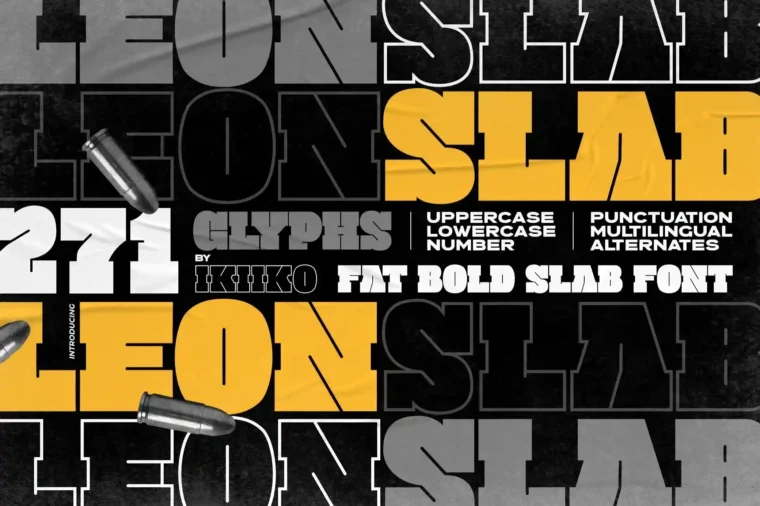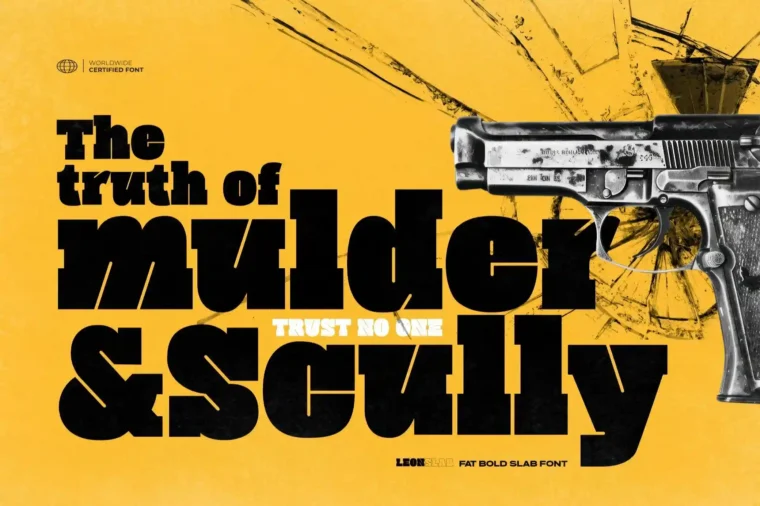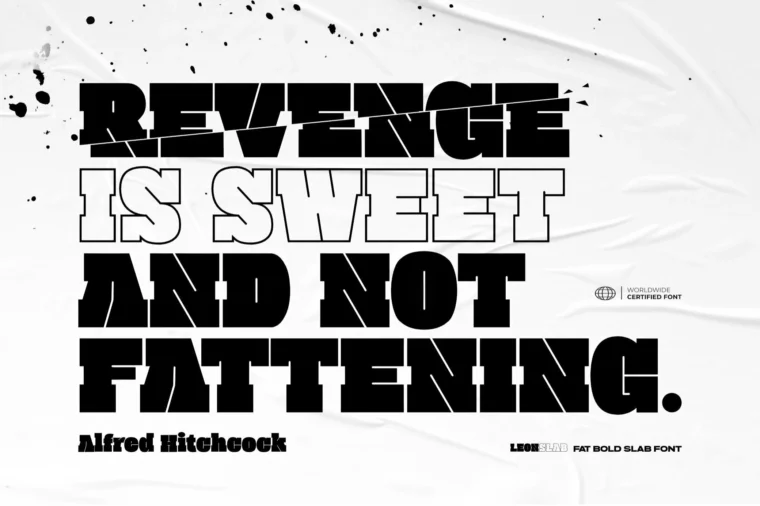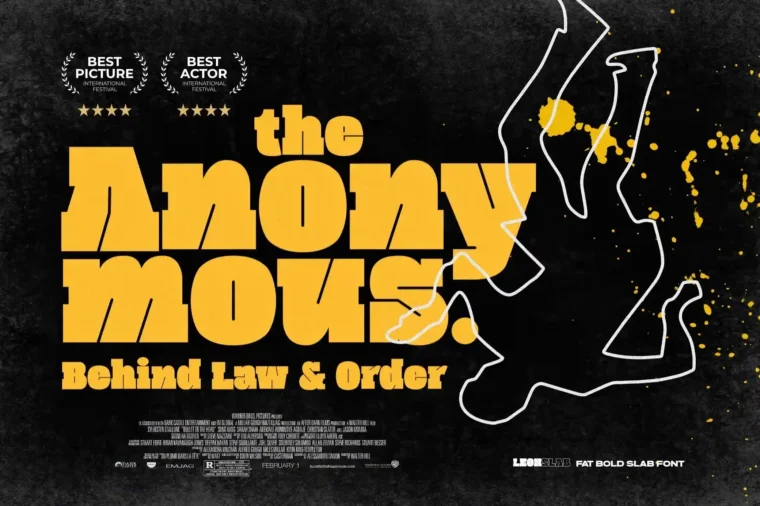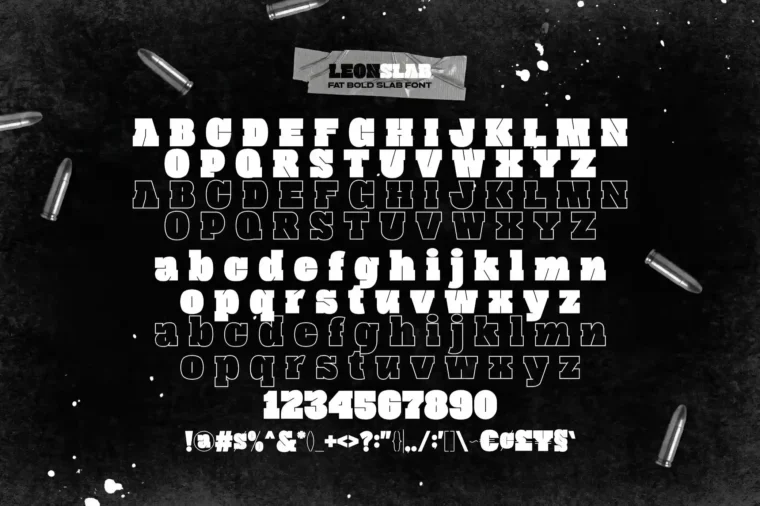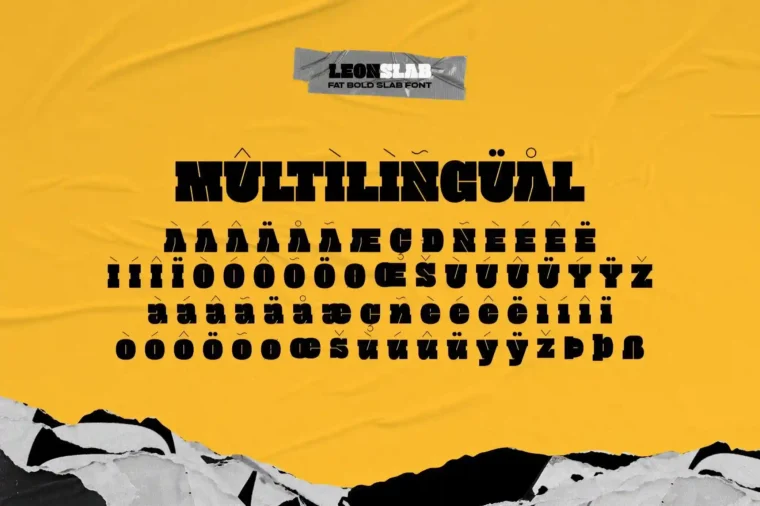
Elevate your design projects with Leon Slab, a striking fat font that embodies robust aesthetics, perfect for making a statement in any creative work. Whether you’re crafting eye-catching movie posters, engaging college flyers, or polished editorial layouts, this versatile font offers the visual impact you need to captivate your audience.
Leon Slab features both bold and outlined styles, allowing you to choose the perfect look for your design. The bold style adds weight and authority, making headlines and titles stand out, while the outlined style brings a modern twist, ideal for layering and adding depth to your compositions. With uppercase and lowercase letters, numbers, and punctuation, this font provides a complete typographic solution for all your needs.
Designed with versatility in mind, Leon Slab is suitable for a wide range of applications. From dynamic advertising campaigns to academic presentations, its robust character will enhance your message and engage your viewers. Its unique design ensures readability while maintaining a stylish edge, making it a must-have addition to your font library.
Optimize your creative projects and watch them come to life with Leon Slab. This fat font is not just a typeface; it’s a tool for expression that adapts to your design vision. Download today and experience the power of bold typography. Transform your designs into compelling narratives that resonate with your audience, and let your creativity shine!
Key Features:
Fat font with robust aesthetics
Two featured styles: bold and outlined
Uppercase and lowercase letters, numbers, and punctuation
Perfect for movie posters, college posters, and editorial layouts